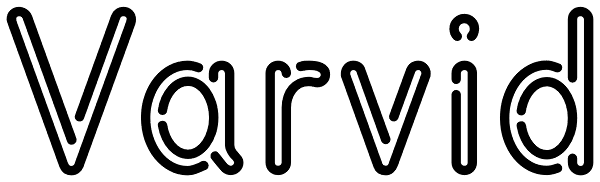
Varvid
The characters in this font are composed of rounded lines with even thickness, giving an impression of neon tubes. Although the design is completely new, it has its stylistic roots in the modernistic 20th century world of steel-tube chairs and...
Varvid Caps
Varvid